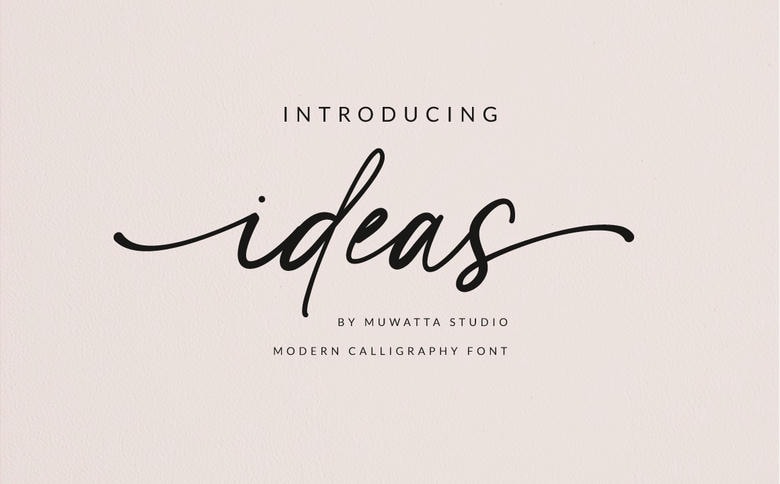
Ideas Font
Ideas is a modern and advanced font, which is expected to enhance the sophistication of the invitations and wedding themes as well as branding a fashion brand. Its elegant strokes and smooth curves are very well balanced between a traditional calligraphy and modern. The font is perfect when it comes to adding a touch of grandeur to event stationery, branding material and editorial designs.
Its ability to be adapted to any type of work is the reason it is appropriate to do not only formal invitations to the wedding but also high-end fashion lookbooks and each production has an upscale and classical look.
Ideas Calligraphy Script Font